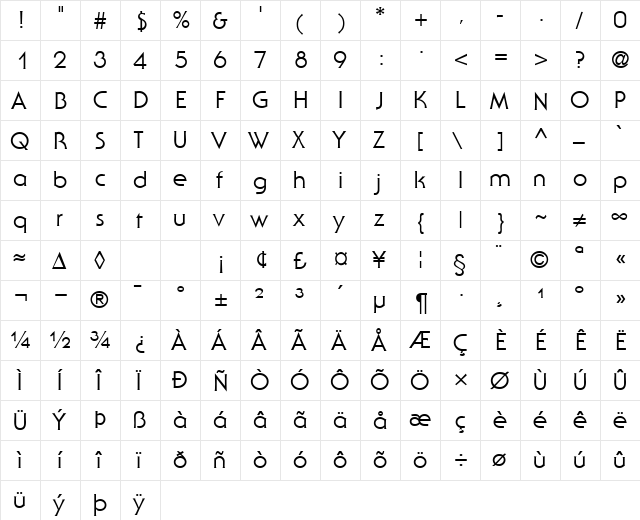
SerenadeTwo DB Regular
Design Context for SerenadeTwo DB Typeface
SerenadeTwo DB offers clean, dependable letterforms without strong stylistic allegiance, making it a practical choice for designers who need flexibility.
Pro Tip: Use SerenadeTwo DB in both headline and body roles to test its range before committing to a single application.